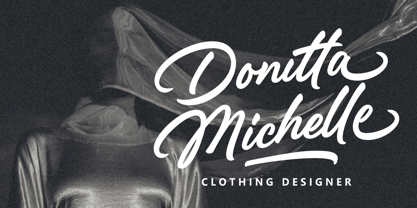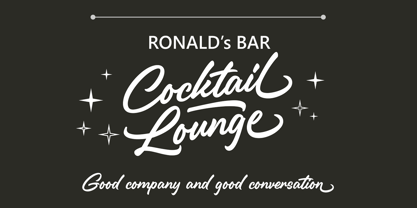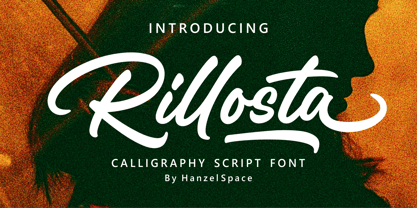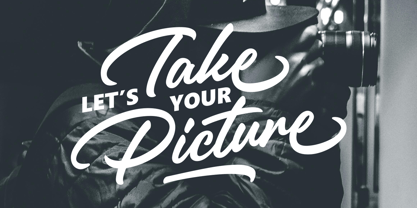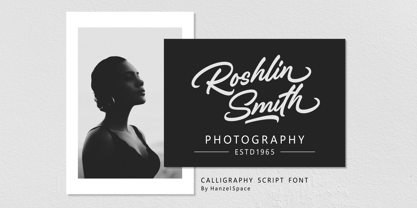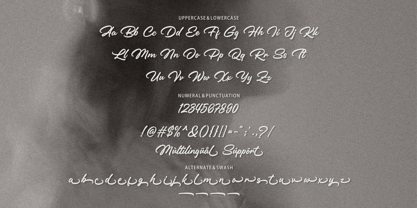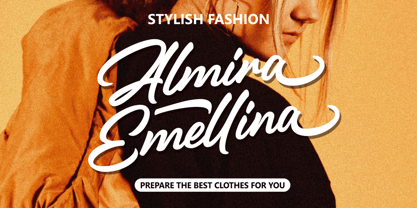
Rillosta
von Hanzel Space
Die Schriftfamilie Rillosta wurde von Hanief Farandi entworfen und von Hanzel Space veröffentlicht. Rillosta enthält 1 Stile. Mehr über diese Familie
Rillosta | Calligraphy Script Font
Introducing the "Rillosta" font, this font is made with a slightly thick calligraphy equipped with alternative letters behind it and if you pay attention, it looks elegant and attractive so this font is very suitable for use in various designs for product branding, logos, labels and others.
• Full Set of standard alphabet and punctuation
• Extra set of ending swashed lowercase
• Handwritten ligatures
Designer: Hanief Farandi
Foundry: Hanzel Space
Rillosta